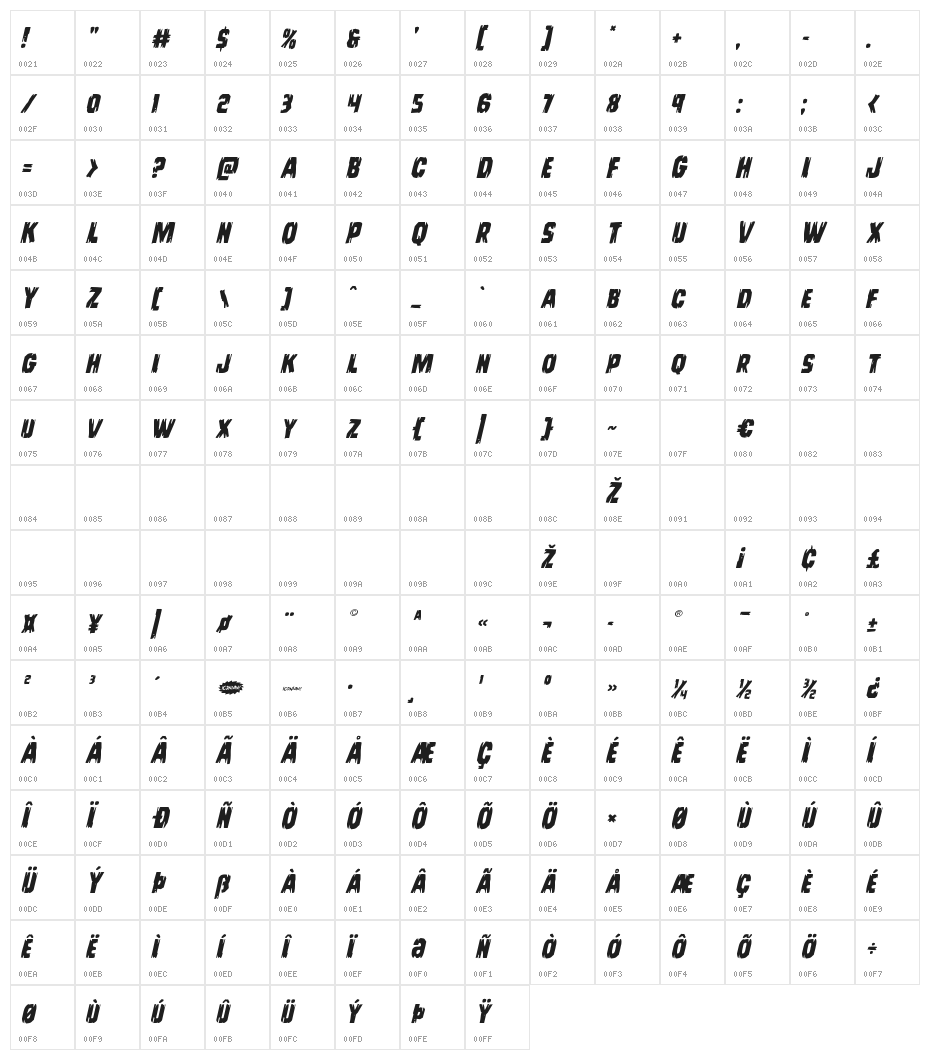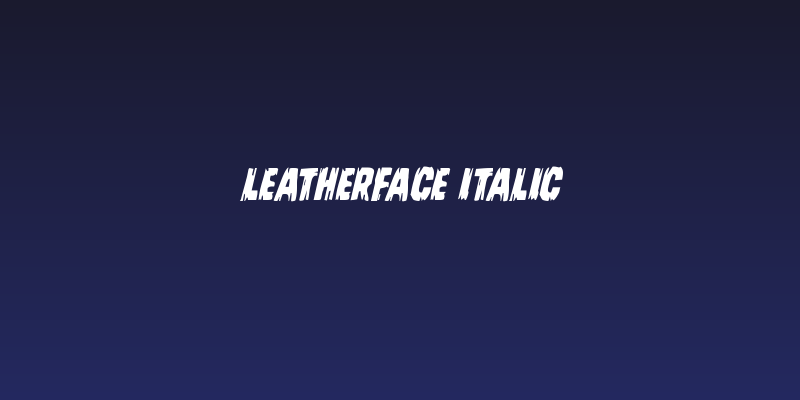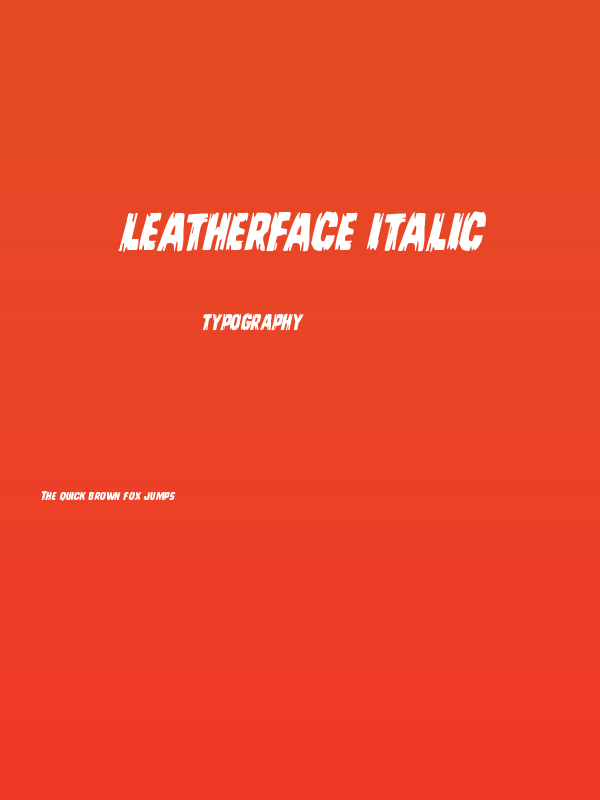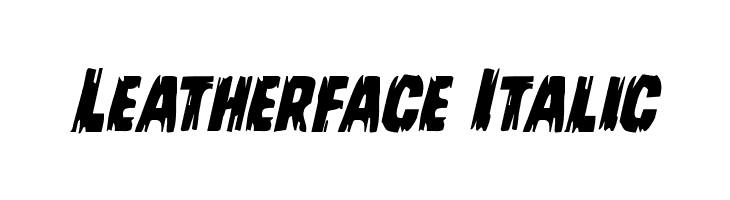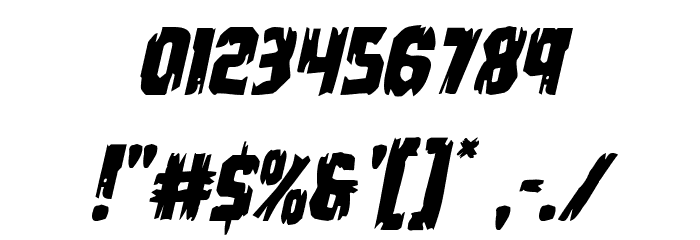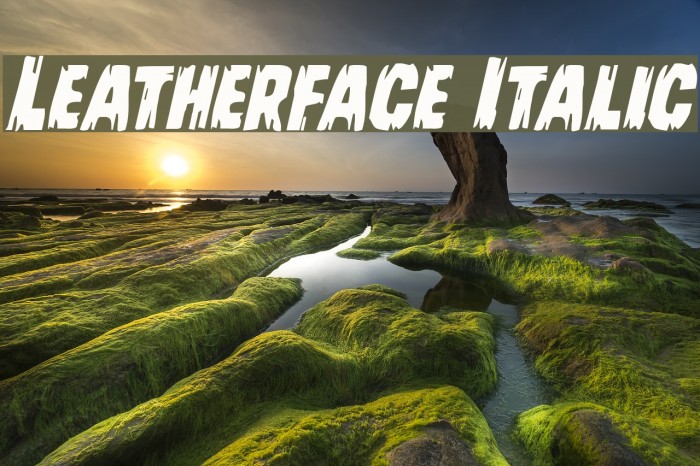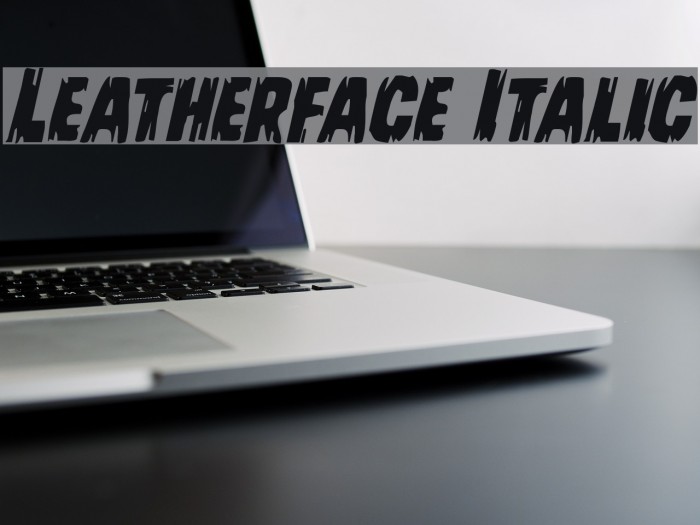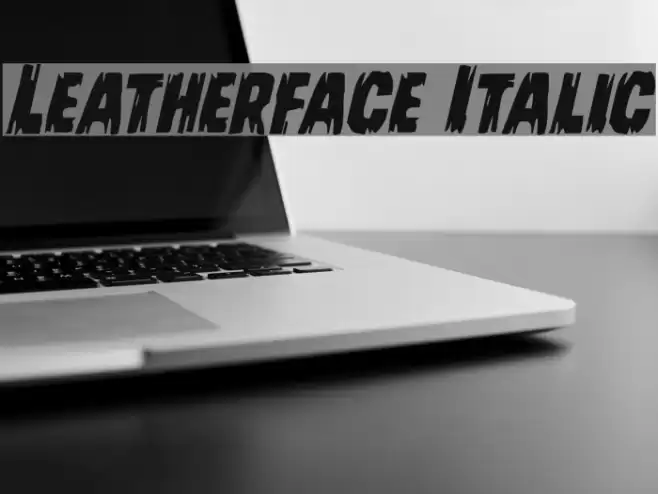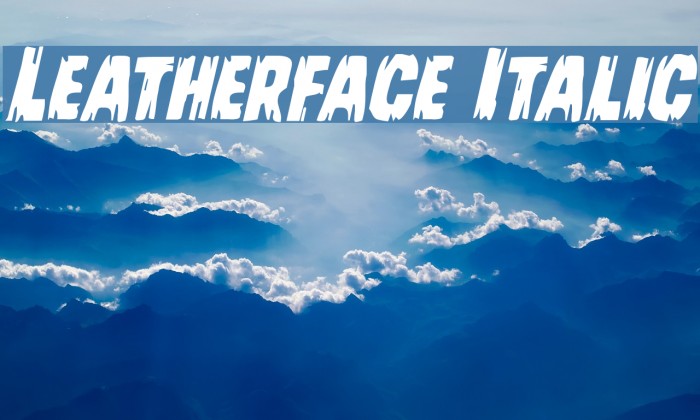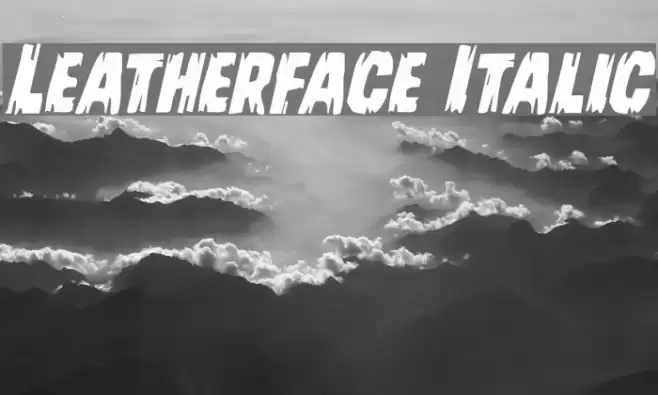
Leatherface Italic Font
Leatherface Italic Description
This font features a bold and aggressive style with jagged edges and a distressed appearance, giving it a raw and intense look. The characters are italicized, adding a dynamic and forward-leaning aspect to the design. The uppercase and lowercase letters maintain a consistent style, with sharp angles and irregular strokes that create a sense of movement and energy. The numbers and special characters follow the same aesthetic, ensuring a cohesive look across all elements. This font is ideal for projects that require a bold statement or a touch of edginess.
| Proposed Projects | Perfect for horror-themed designs, movie posters, edgy branding, or music album covers. |